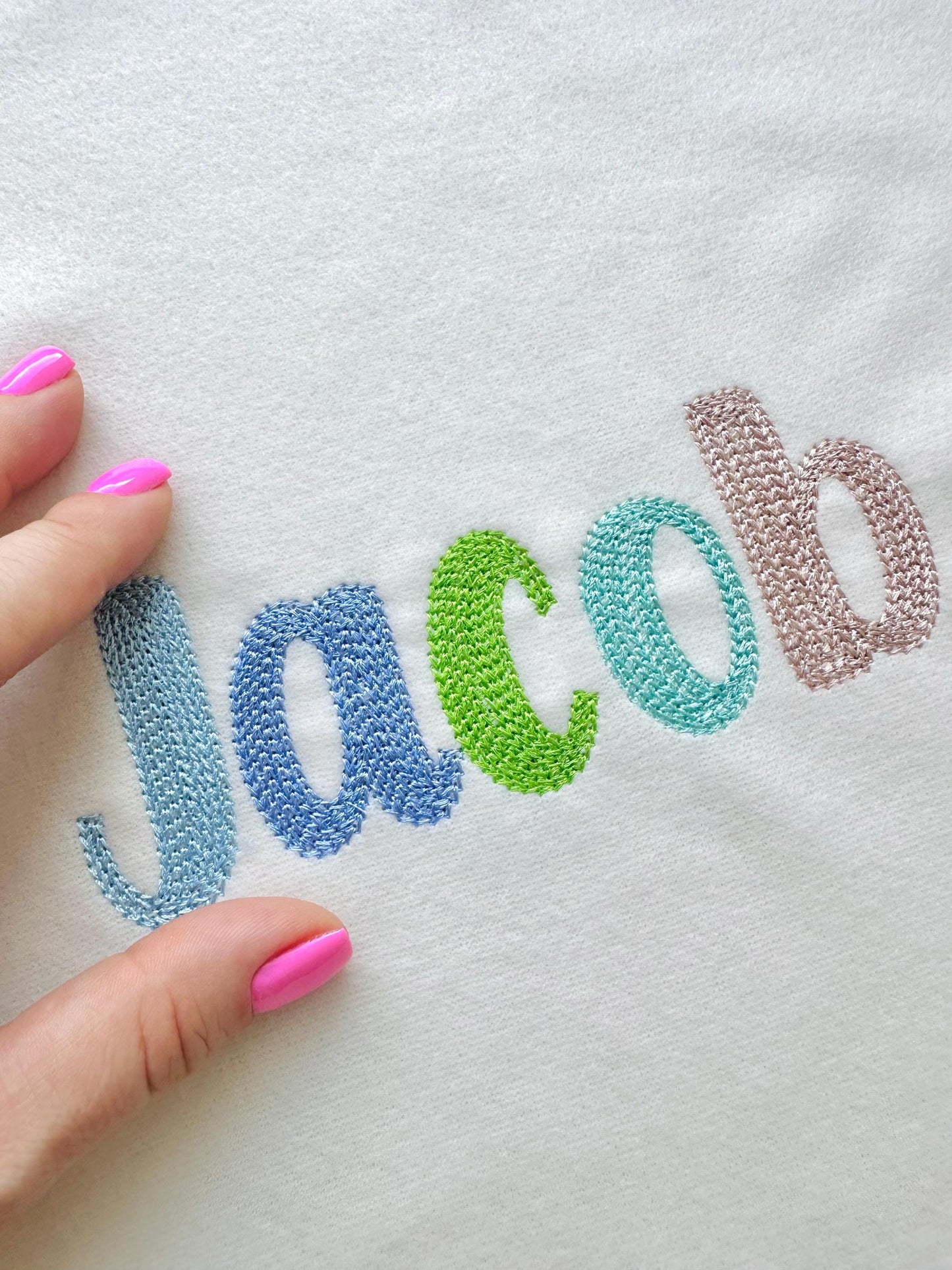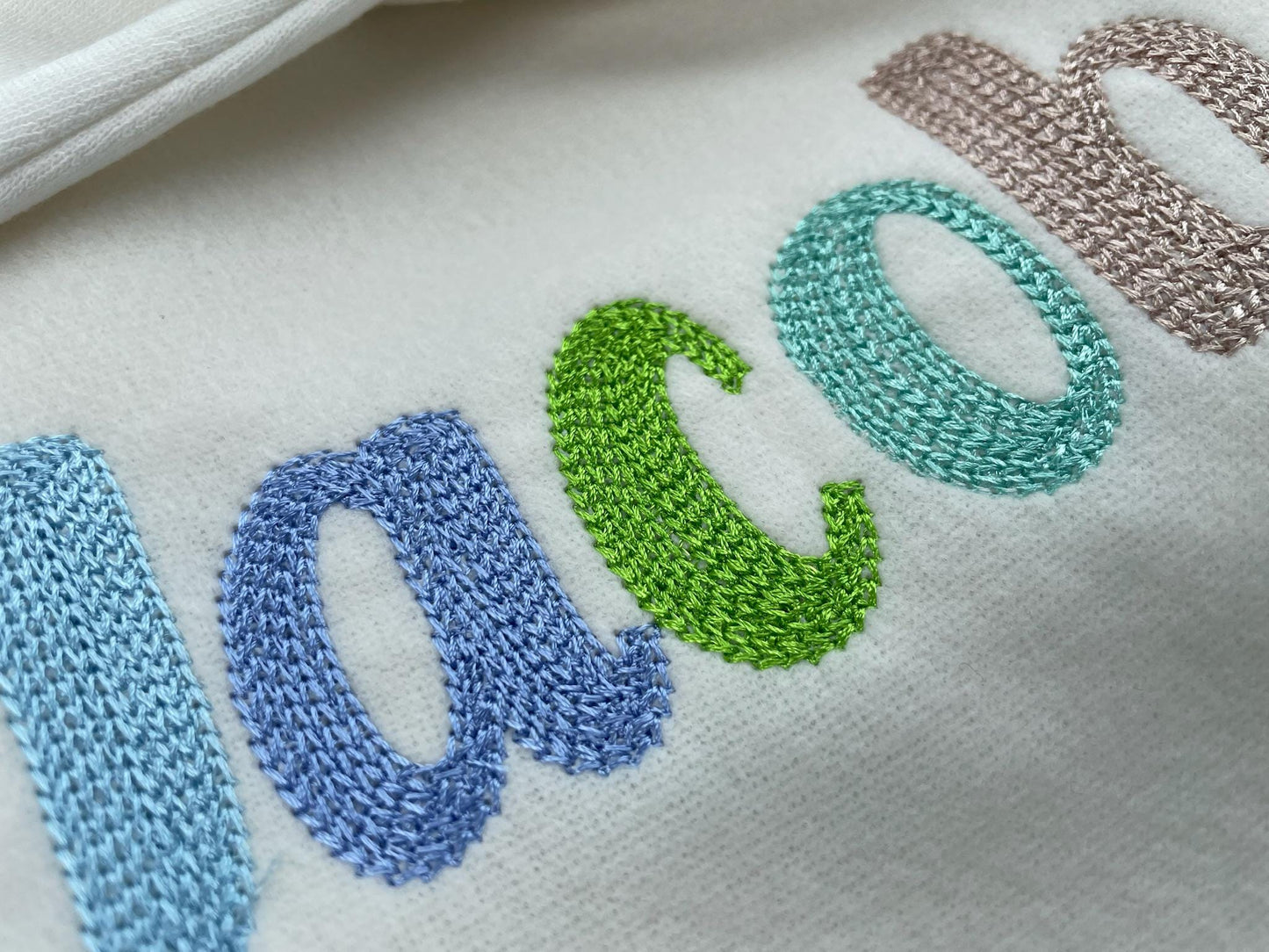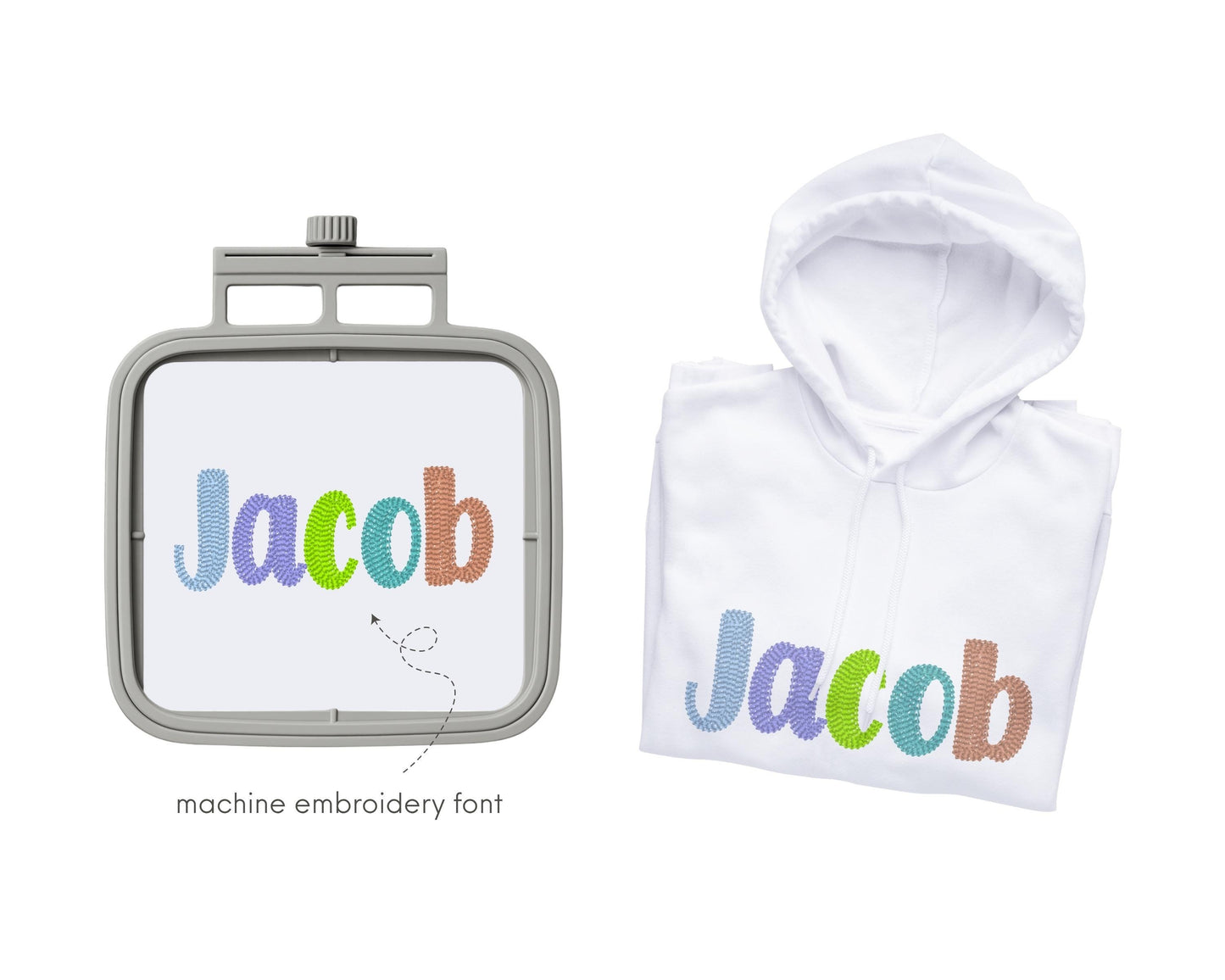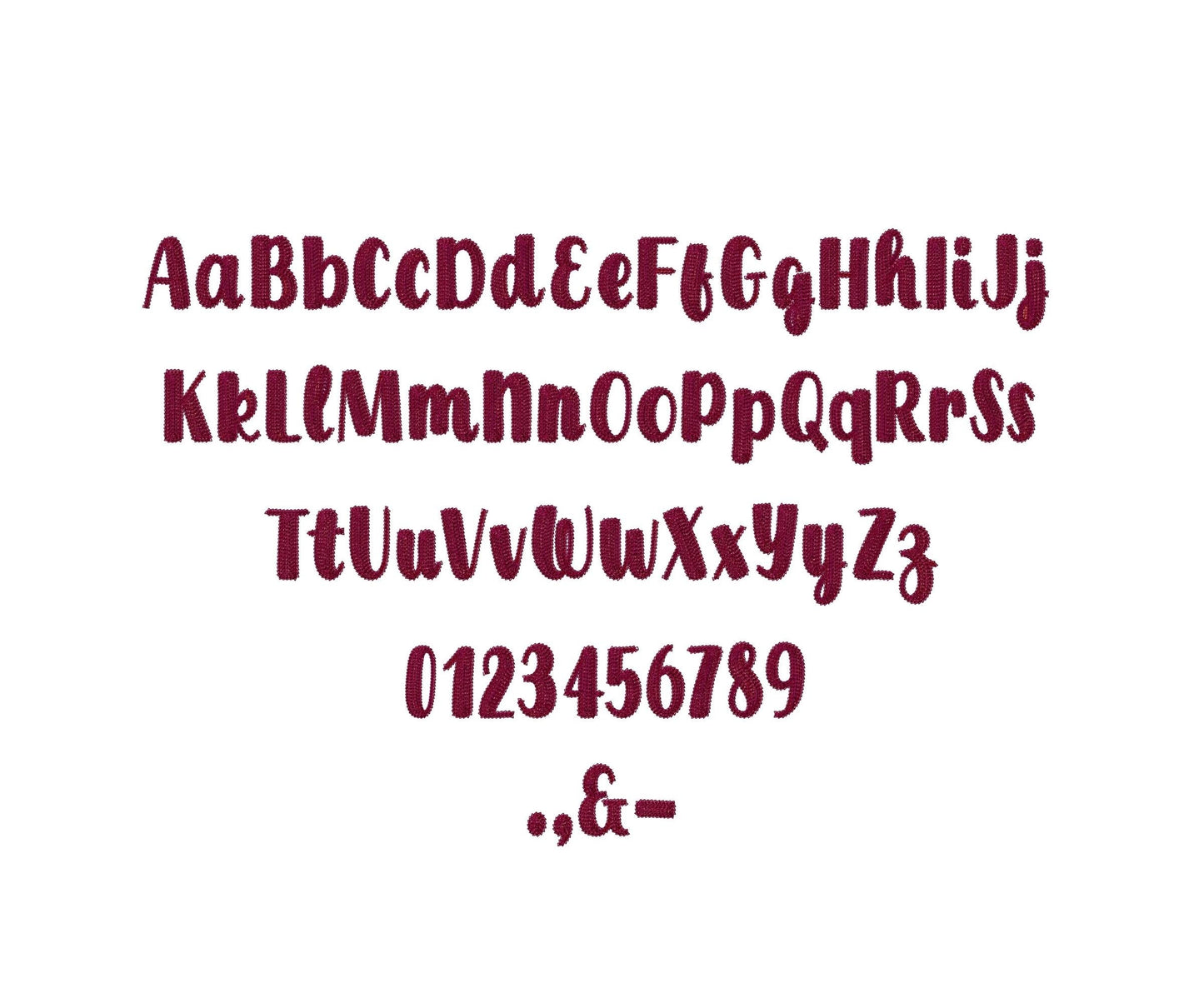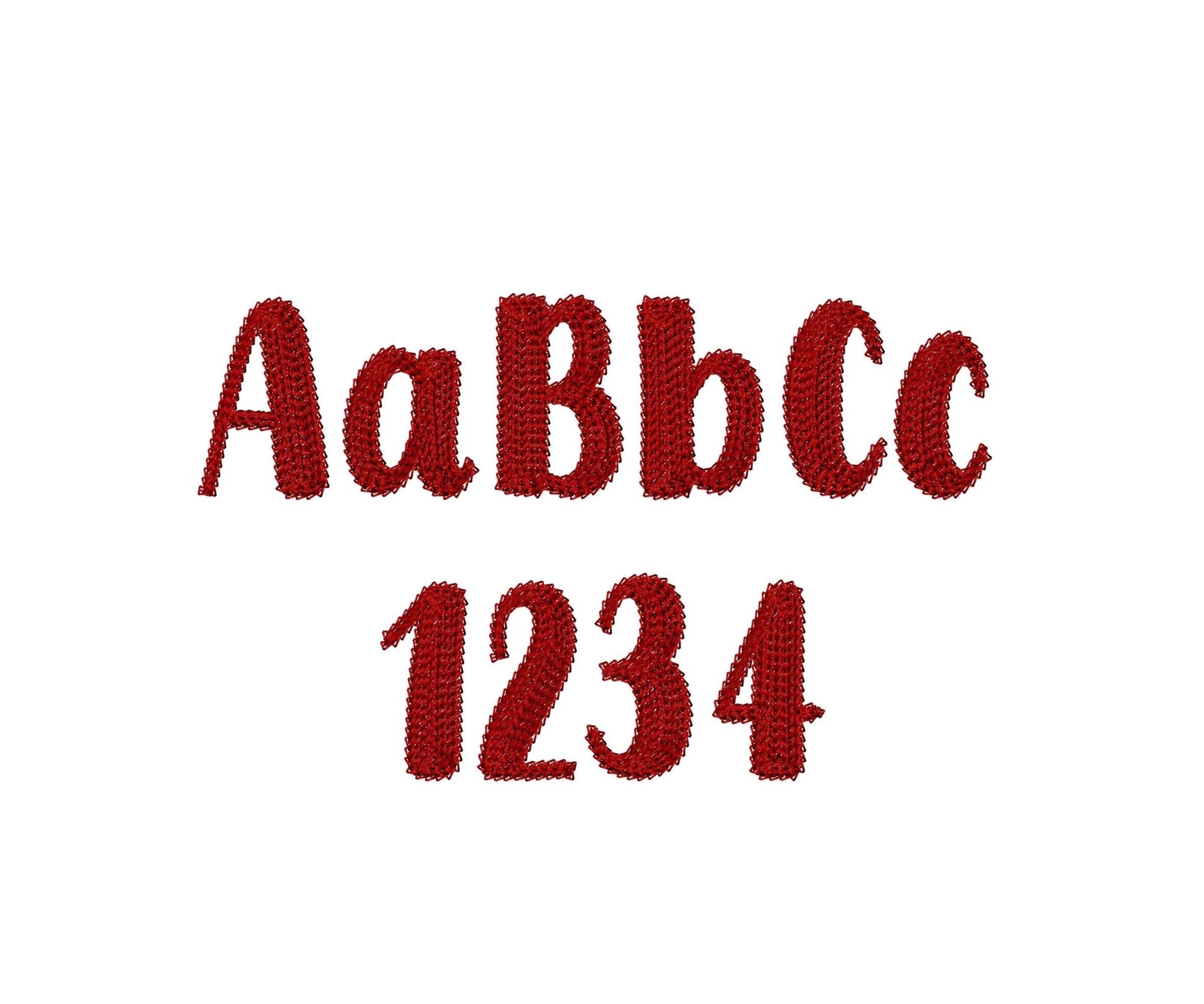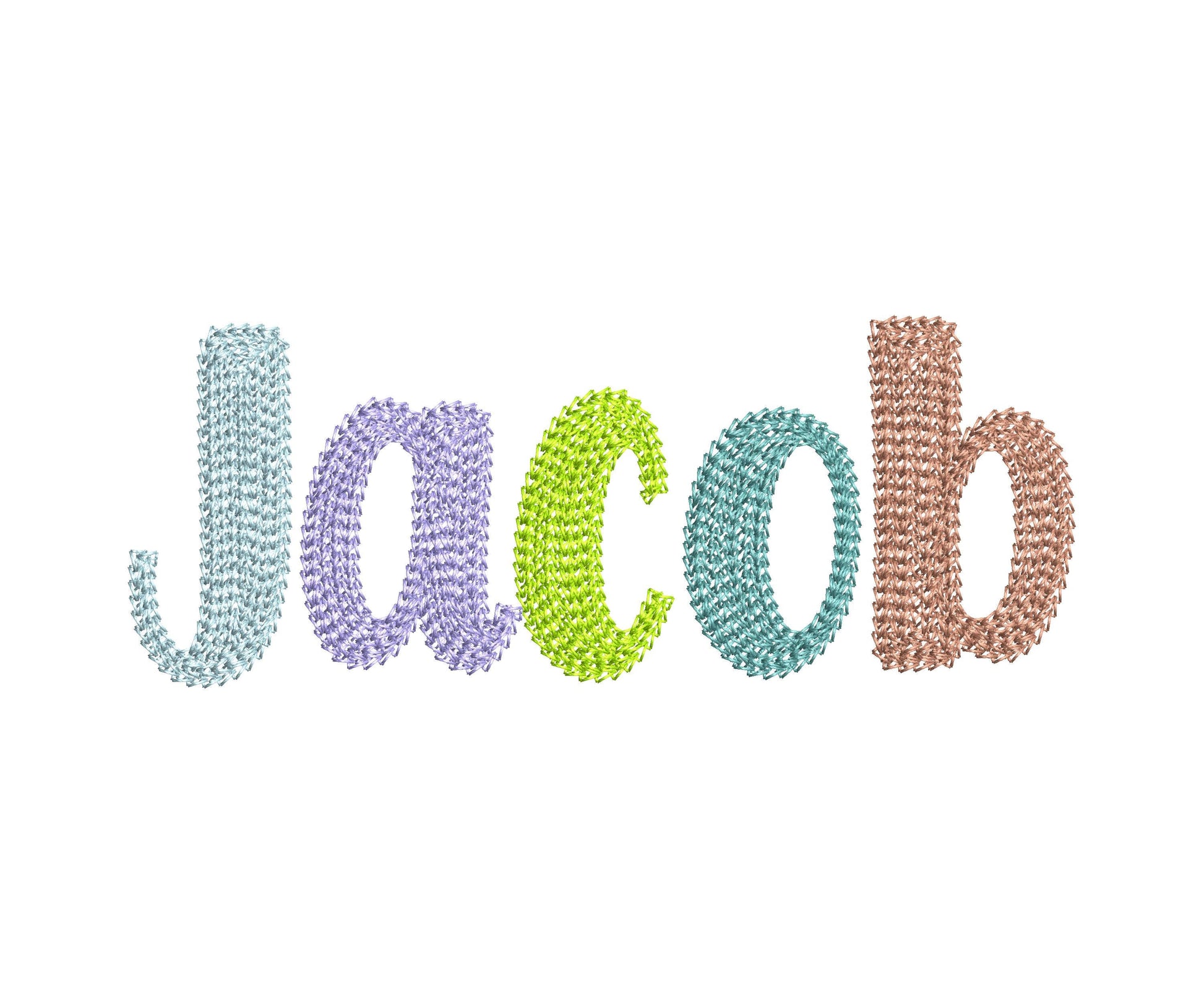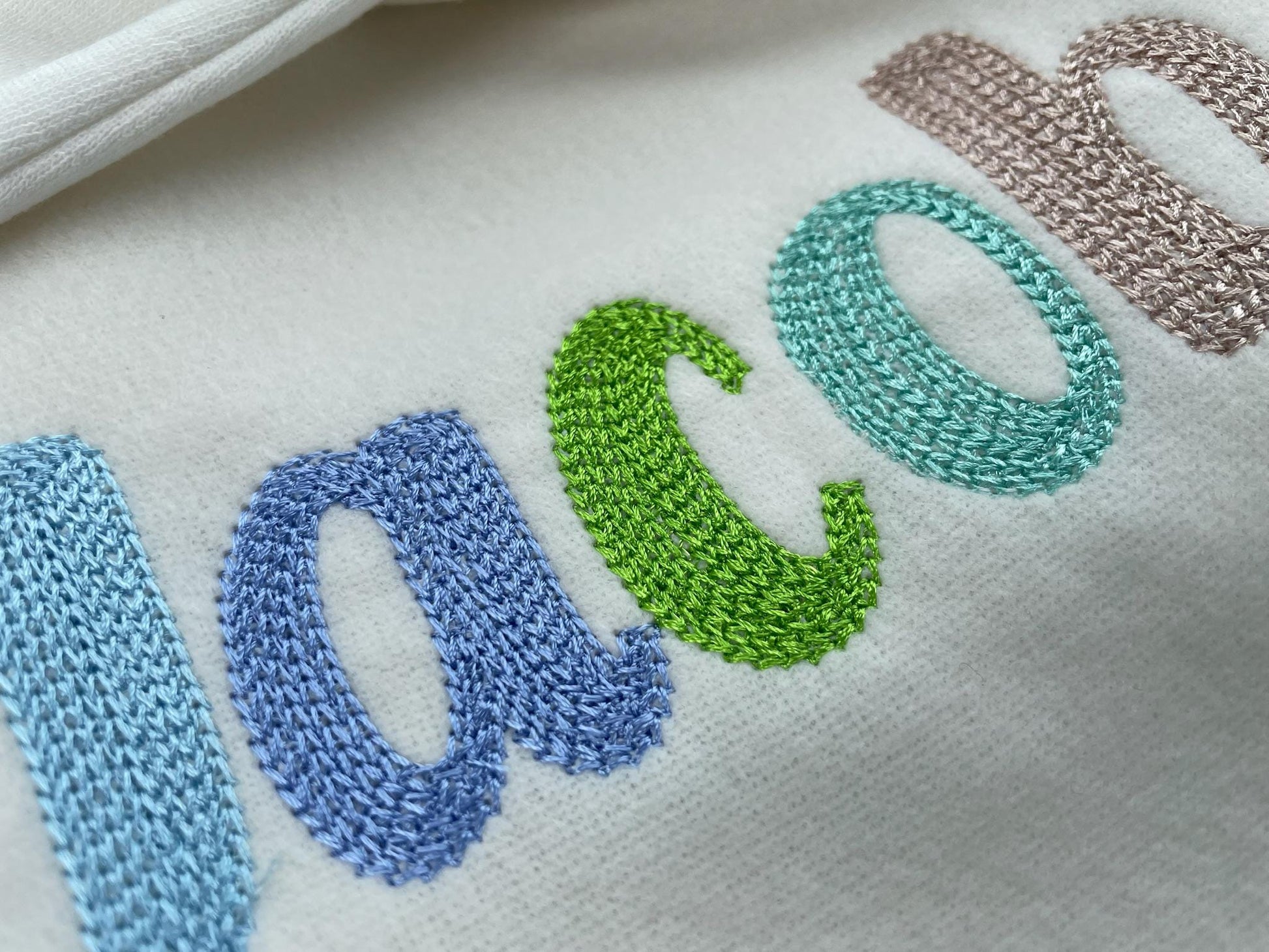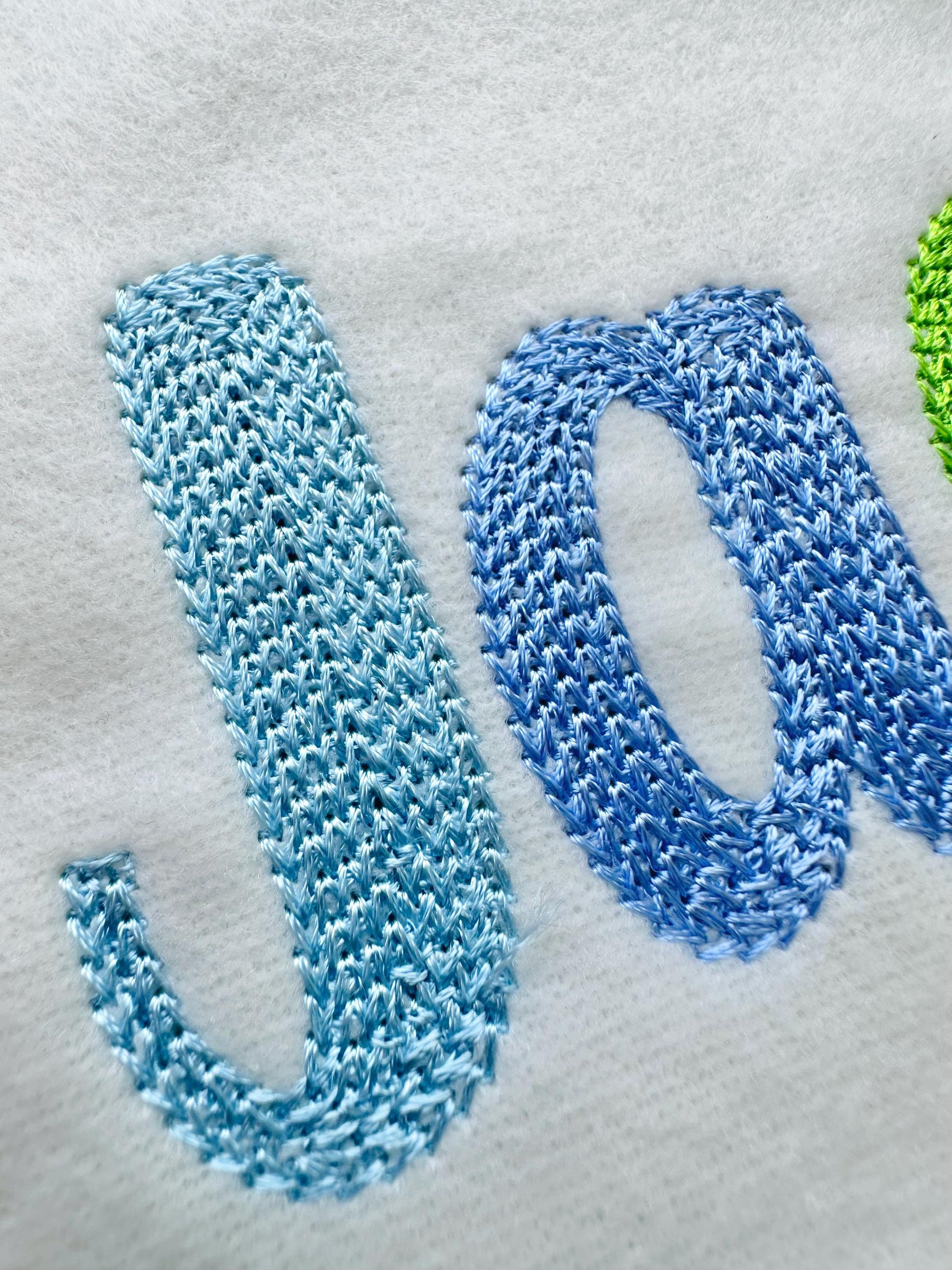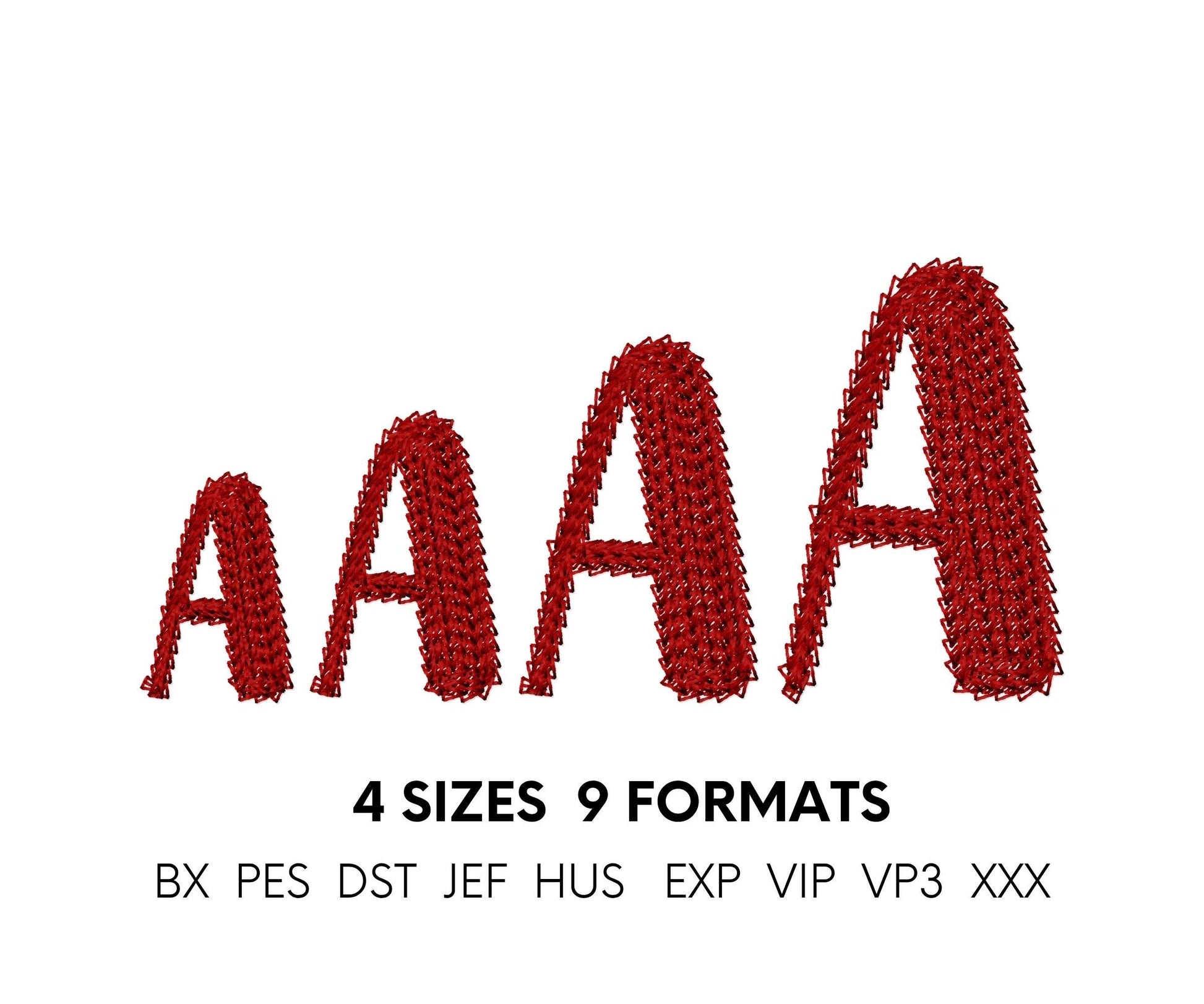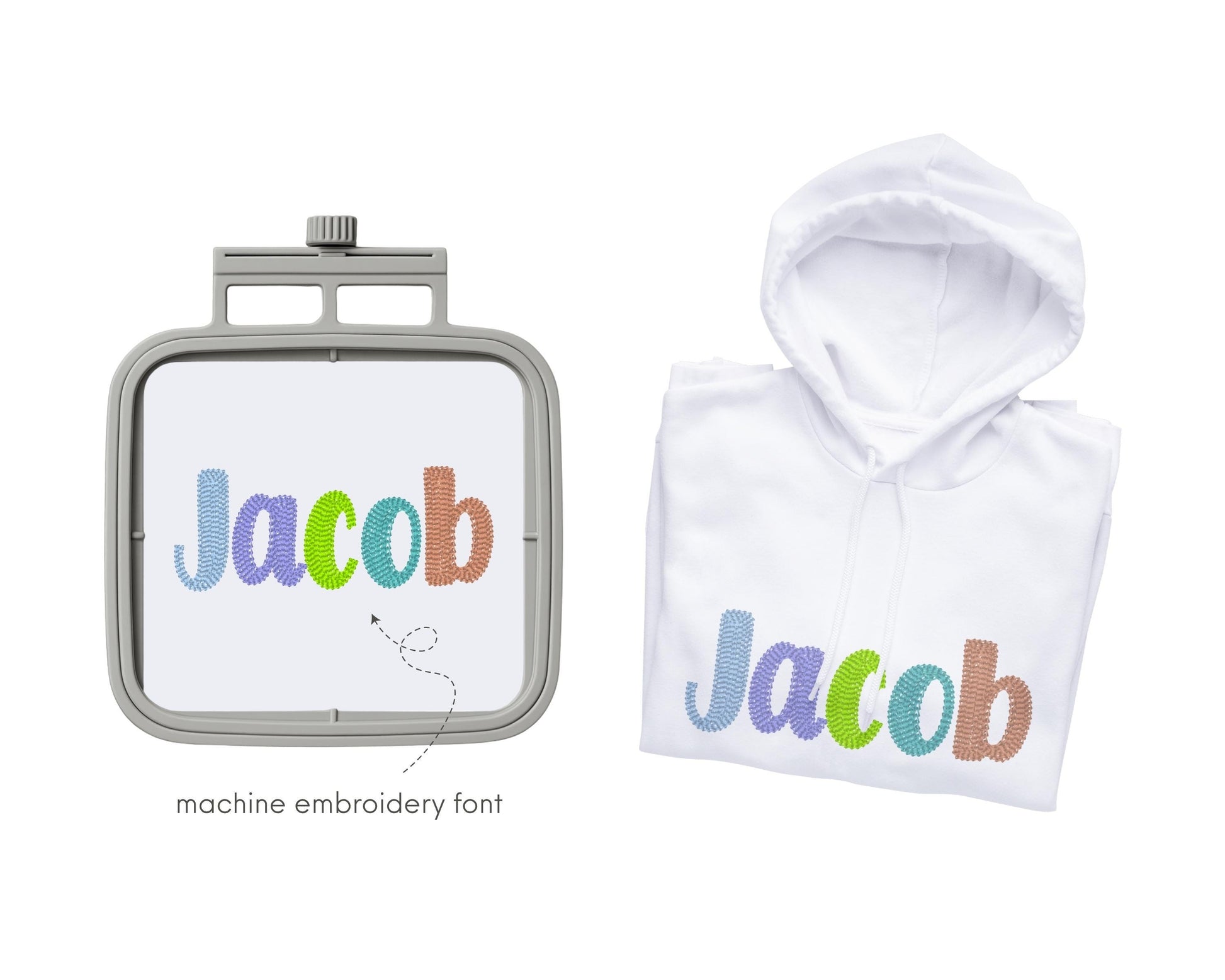
Or click to open the linkA bold chain font with a light fill and a hand-stitched look. Lovely for names, monograms and sayings.
Uppercase and lowercase letters, numbers 0 to 9 and punctuation, in four sizes: 1.4, 1.8, 2.2 and 2.7 inches.